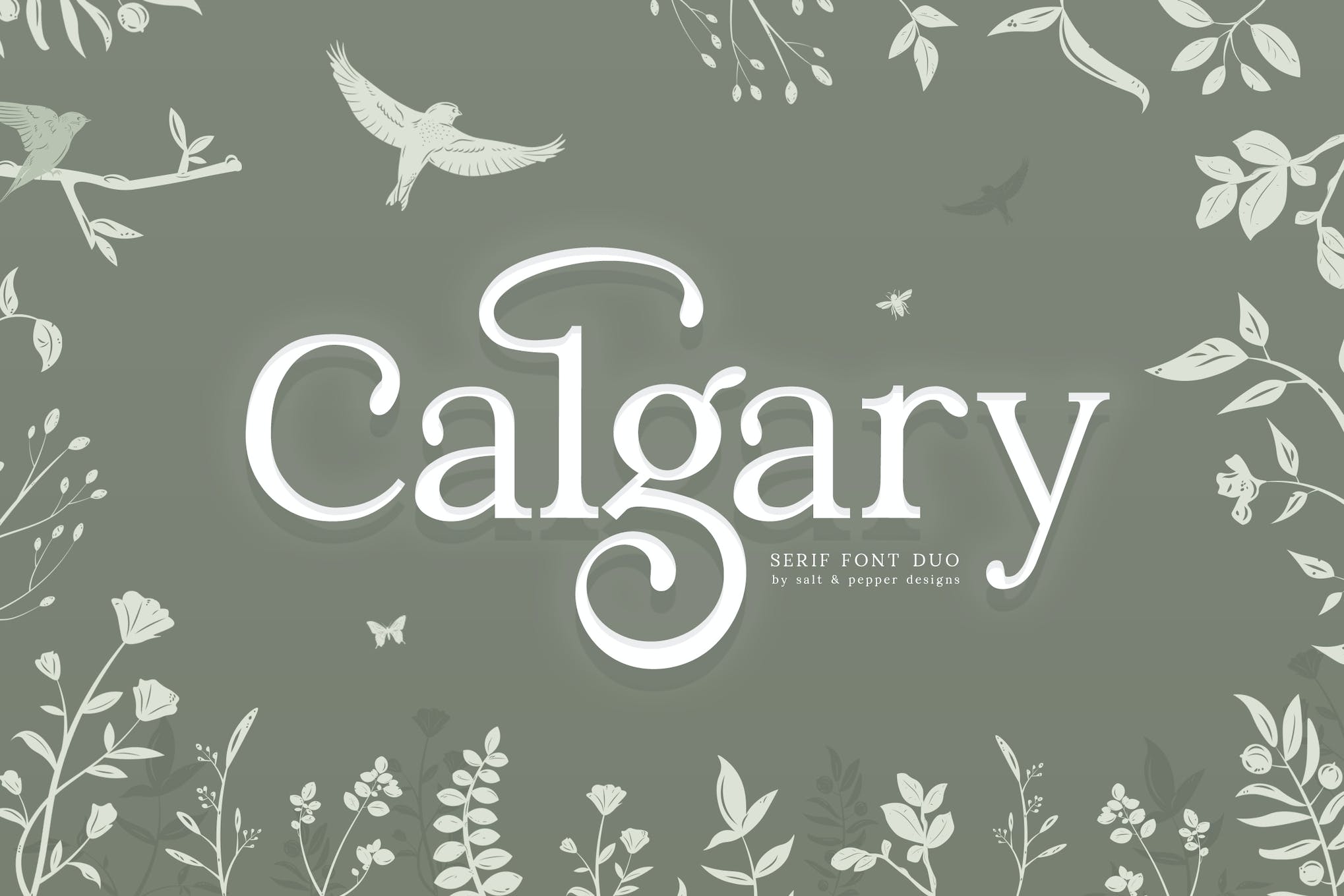
Calgary Serif Font Duo
Megante Classy Font
Megante Classy Font is a contemporary and casually chic typeface, ideal for impactful branding, elegant wedding invitations, and various projects. It features a comprehensive set of beautiful uppercase and lowercase letters, numbers, and alternates, provided in TTF, OTF and WOFF formats. This third-party asset could be your next go-to font.
Original Classy Branding Font
Original Classy Branding Font is a sophisticated, feminine font specifically tailored for branding purposes. It offers unique ligatures and alternate characters, providing endless creativity. It contains versatile formatting options such as .otf, .ttf, and .woff and includes both lowercase and uppercase characters. Along with providing a preview for inspiration, it equips designers and product owners with a stylish and modern touch to enhance their brand’s appeal. Enjoy exploring its countless variations.